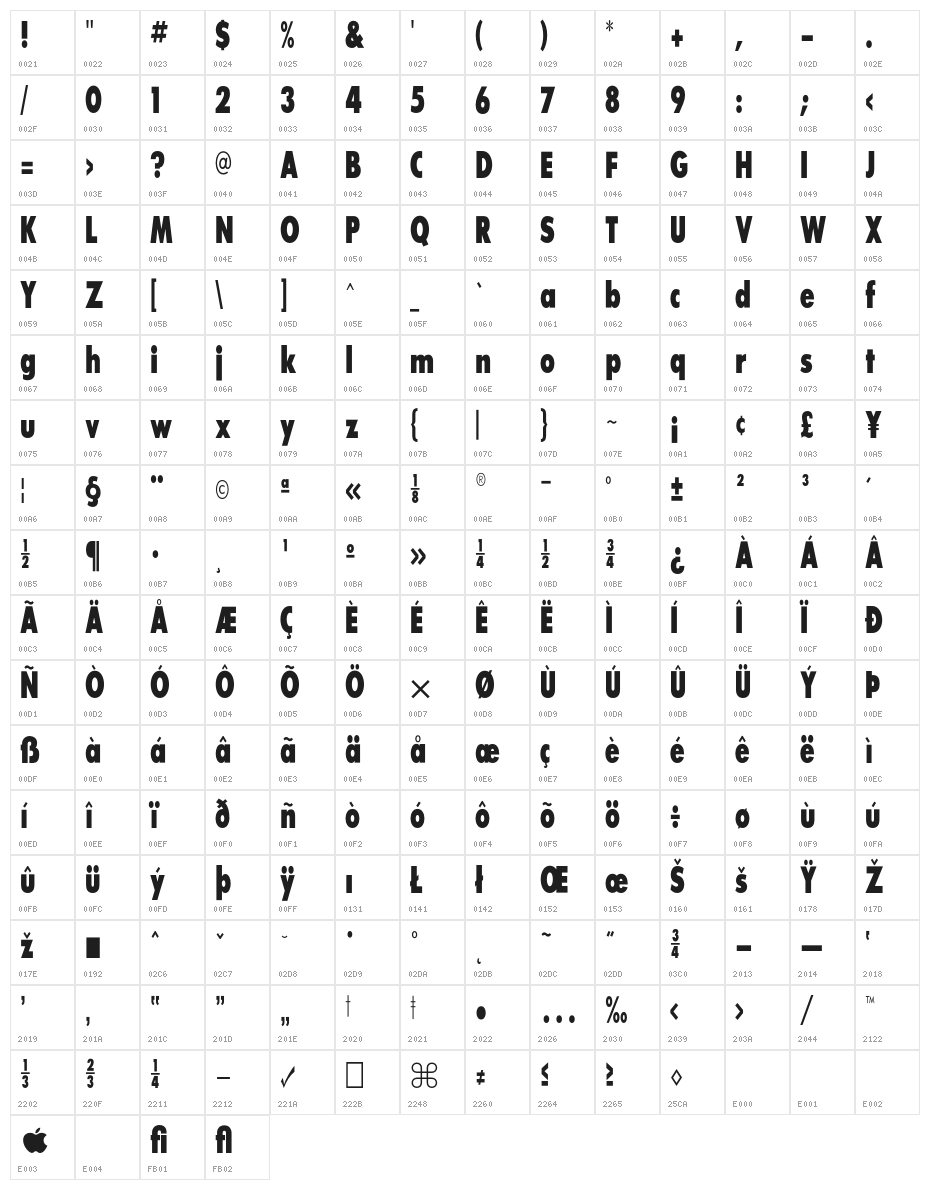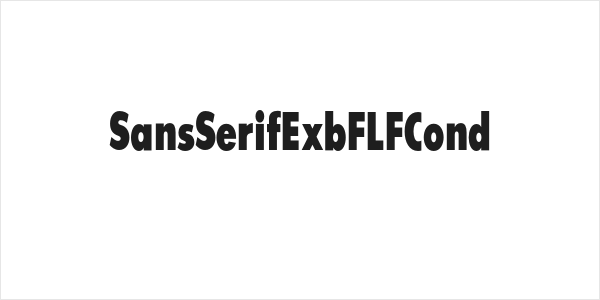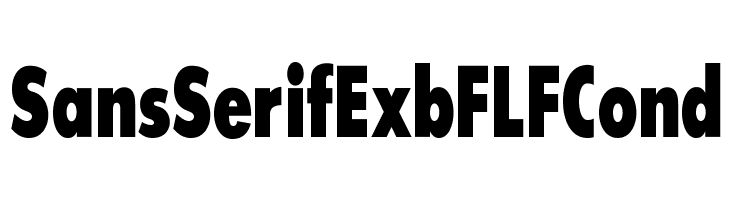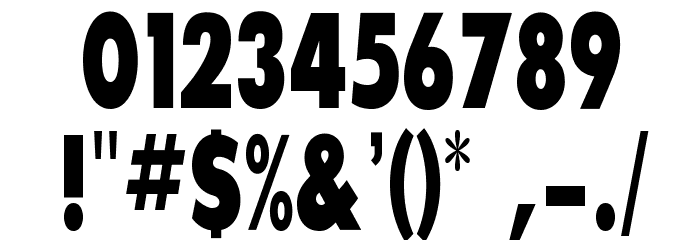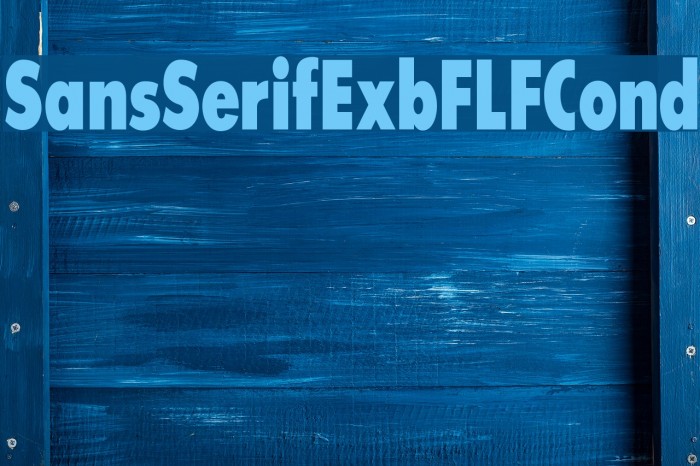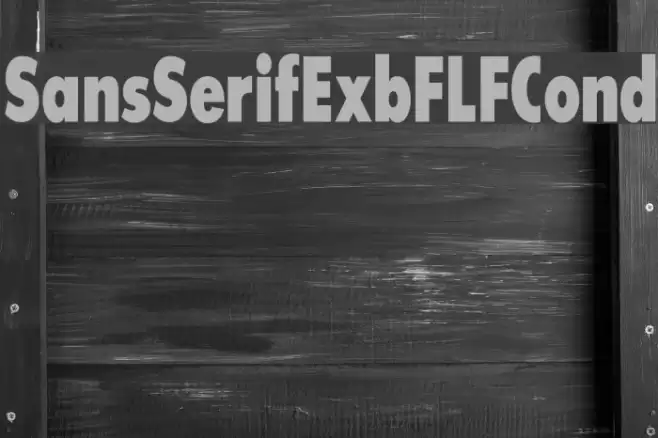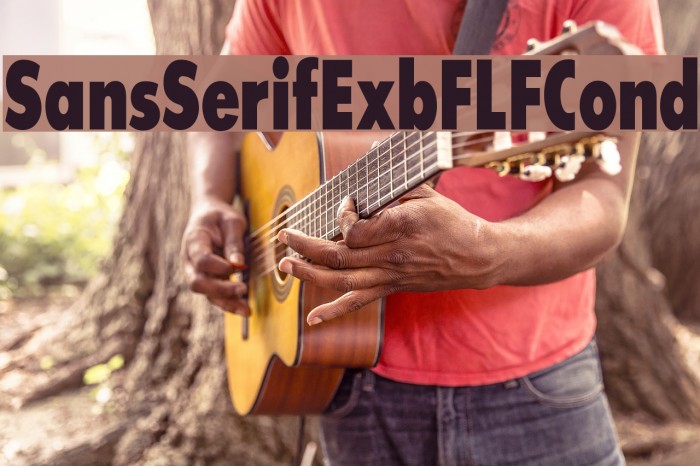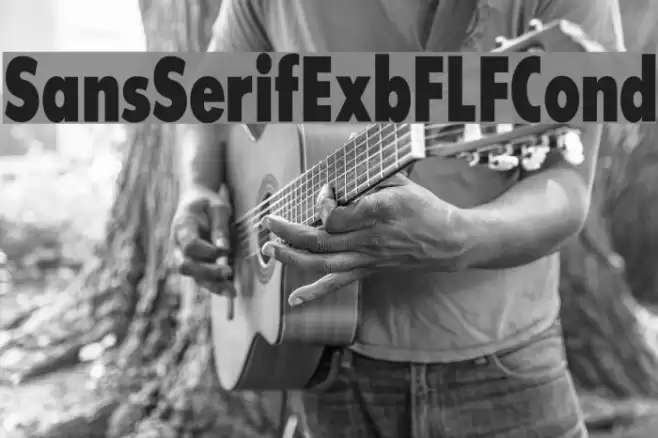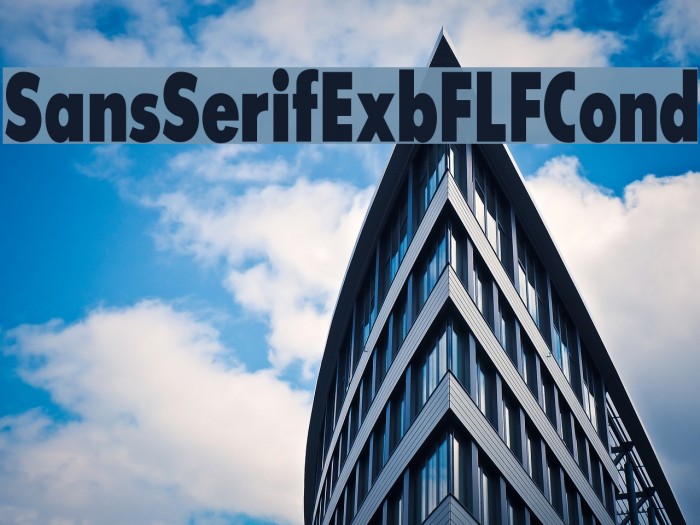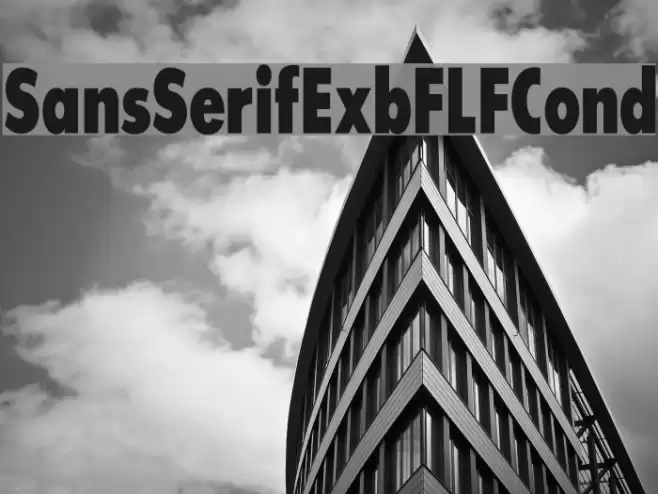
SansSerifExbFLFCond Font
SansSerifExbFLFCond Description
This font is a bold, sans-serif typeface characterized by its strong, geometric shapes and clean lines. The uppercase and lowercase letters are well-proportioned, with a consistent stroke width that gives it a uniform appearance. The numbers are equally bold and clear, making them highly legible. Special characters are designed with the same boldness, ensuring they stand out. The overall design is modern and impactful, suitable for making strong visual statements.